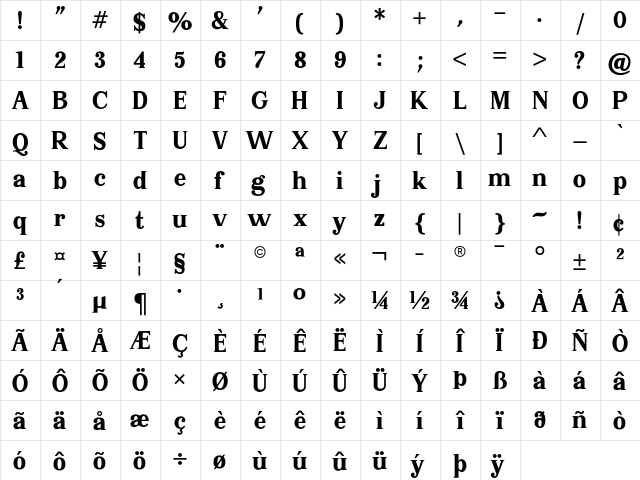
Serif Memorial Bold
Design Context for Serif Memorial Typeface
Serif Memorial brings classic typographic sensibility to the table — its serifs and measured letterforms reflect centuries of print heritage. Its bold stroke weight gives it real presence on the page.
Pro Tip: Use Serif Memorial for editorial body copy and considered headline work. Pair with a neutral sans for UI elements or captions to create a classic hierarchy.